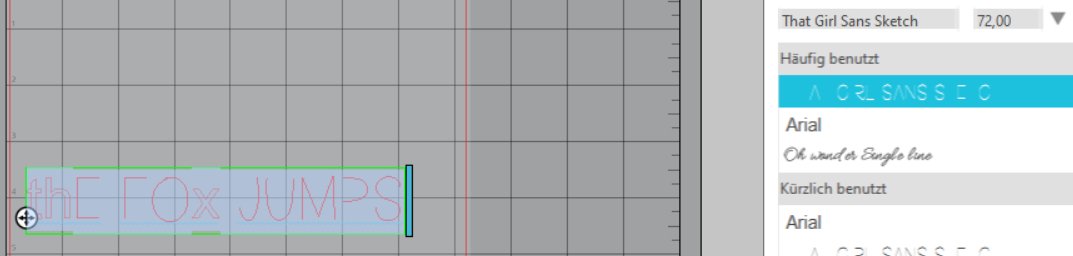
Meet That Girl font duo, a hairline version of my regular 'That girl' font. That girl Single line sketch font is a hand written cursive script, ideal for all things sketch pen, engraving and foil quill! It's perfect for greeting cards, engraving on wood, lasercut and so much more!